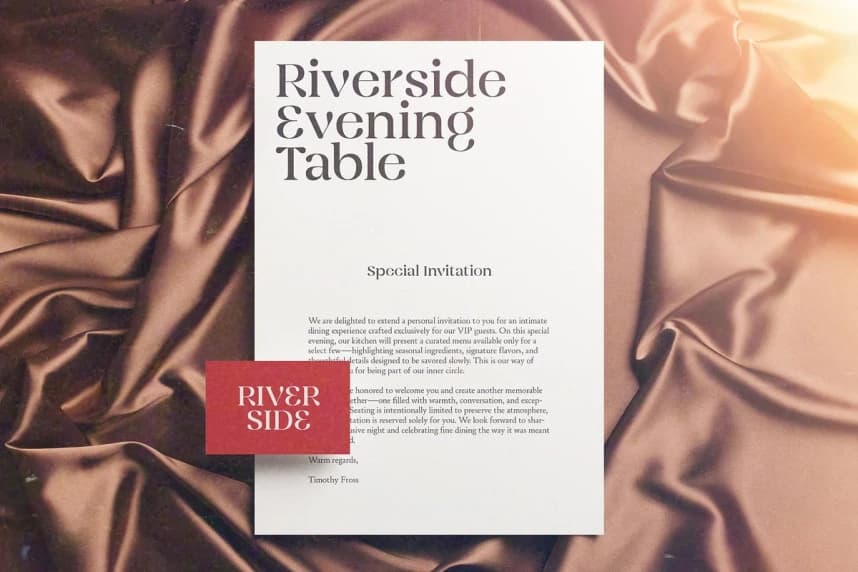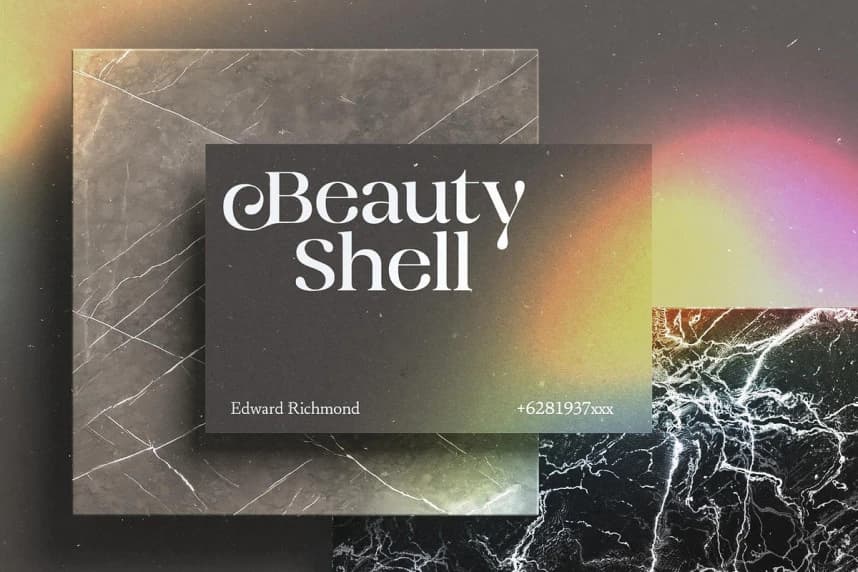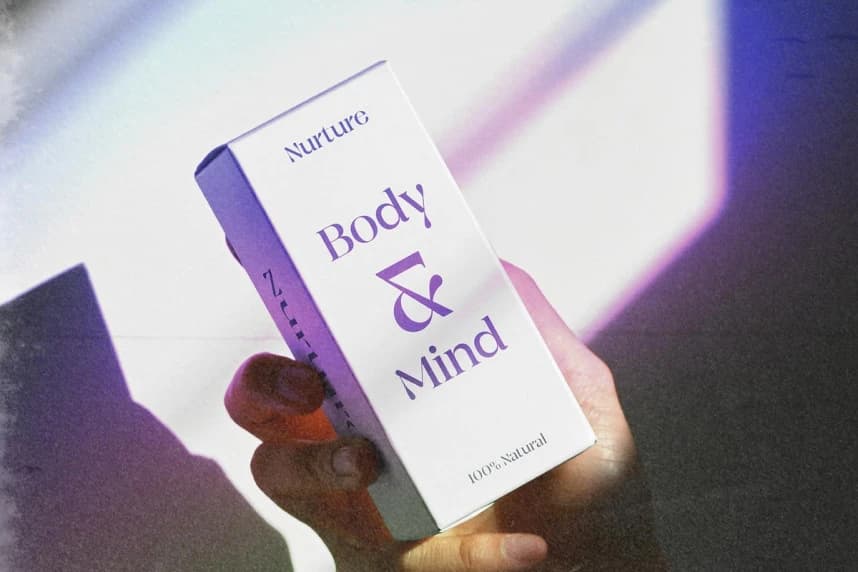
Soulrise Font is a refined display serif that radiates femininity, warmth, and timeless elegance. Designed with high contrast strokes and graceful details, this typeface feels both unique and expressive while remaining beautifully sophisticated.